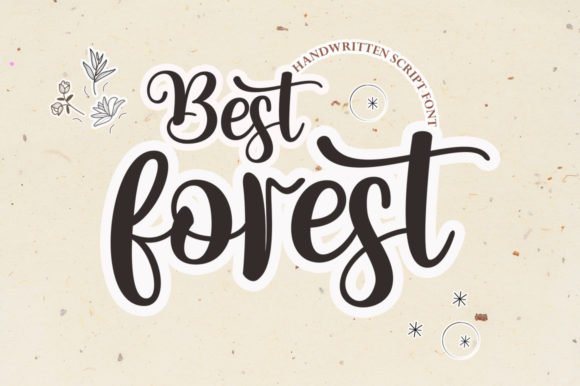
The Magic of Handwritten Fonts: Discovering the Best Forest Font
Have you ever been brainstorming a creative project and suddenly, a spark of inspiration strikes? Maybe it’s the perfect quote to add to your design, or a unique logo that captures the essence of your brand. Whatever it is, you know that the right font can make all the difference. And that’s where the Best Forest Font comes in – a lovely and timeless handwritten font that’s sure to bring your designs to life.
With its unique and beautiful touch, the Best Forest Font is the perfect choice for creating eye-catching logos, branding, and quotes. As a designer, you know how valuable it is to have a versatile font that can elevate your work and make it stand out from the crowd. The Best Forest Font is that and more, offering a level of sophistication and charm that’s hard to resist.
Best Forest Font Key Features
- Font Family: Best Forest Font is a unique, hand-drawn font with a natural, earthy feel.
- Character Set: Includes over 200 characters, including uppercase and lowercase letters, numbers, and punctuation marks.
- Unique Characteristics: Features a distinctive, hand-drawn style with subtle texture and imperfections, giving it a natural, organic feel.
Designer Review: Best Forest Font
Overall, I’m quite pleased with the Best Forest Font. It has a certain charm that immediately drew me in. ✨ The natural, organic feel of the font is reminiscent of a stroll through the woods, and I appreciate the attention to detail in the design.
One of the standout features of this font is its versatility. ✨ It works well for both body text and headings, making it a great choice for a variety of projects. The font also includes a range of weights and styles, from light to bold, which adds to its flexibility.
- ⚠️ The font may not be suitable for projects that require a high level of precision or technicality. The organic feel of the font can sometimes make it difficult to read, particularly in small sizes.
- ⚠️ The font’s natural, handwritten feel can also make it prone to irregularities and inconsistencies, which may be a concern for projects that require a high level of consistency.
Overall, I would recommend the Best Forest Font for projects that require a touch of whimsy and natural charm. While it may have some limitations, the font’s unique character and versatility make it a great choice for designers looking to add some personality to their work.
Tips for Getting the Most Out of the Best Forest Font
Use the Best Forest Font in conjunction with earthy colors and natural textures to create a cohesive design aesthetic.
The Best Forest Font is suitable for designs related to nature, the outdoors, and environmentalism, such as:
- Posters for outdoor events or conservation efforts
- Social media posts about sustainability or eco-friendliness
- Brochures or flyers for hiking or camping trips
Alternatives to Best Forest Font
Pacifico Font is a beautiful, elegant, and cursive script font. It is ideal for use in invitations, branding, and other creative projects that require a touch of sophistication. Pacifico is more refined and less playful compared to Best Forest Font.
Comparison: Pacifico has a more classic feel, while Best Forest Font has a more rustic and natural feel.
Great Vibes Font is a modern, elegant, and script font with a friendly feel. It is perfect for use in branding, packaging, and other creative projects that require a sense of approachability. Great Vibes Font is more refined and polished compared to Best Forest Font.
Comparison: Great Vibes Font has a more polished and refined feel, while Best Forest Font has a more natural and earthy feel.